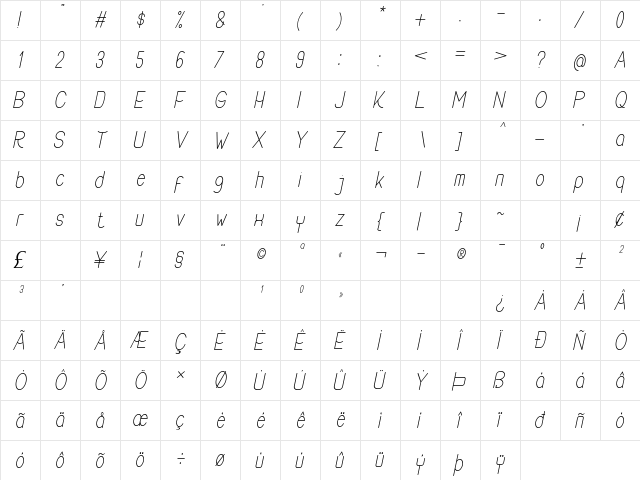
Buon Umore Thin Italic Italic Font Preview
Design Context for Buon Umore Thin Italic Typeface
Buon Umore Thin Italic offers clean, dependable letterforms without strong stylistic allegiance, making it a practical choice for designers who need flexibility. The dynamic lean of this cut emphasises speed and emphasis in any layout. The delicate stroke weight brings airiness and refinement to layouts.
Pro Tip: Try Buon Umore Thin Italic for annotation and caption copy alongside an upright companion — the contrast in angle creates a dynamic but ordered typographic system.